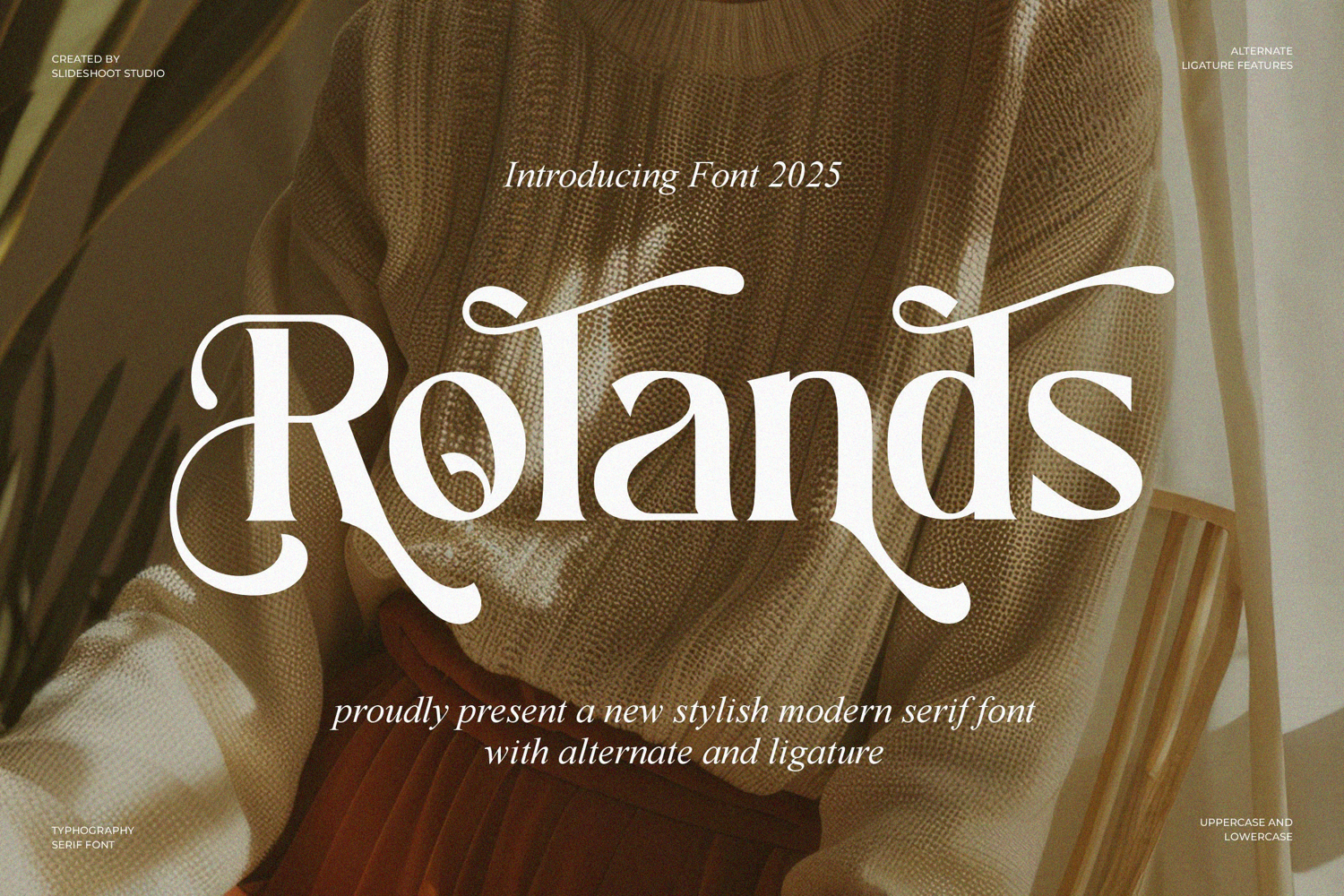
Rolands || Modern Stylish Serif Font
Rolands
Introducing Rolands modern serif font, trendy, elegant and stylish font. It has a unique character. It is perfect to be combined with invitation card designs, company logos, movie titles, movie names, business cards, book titles, brand names and various other designs.
- Uppercase and lowercase
- Numbering and Punctuation